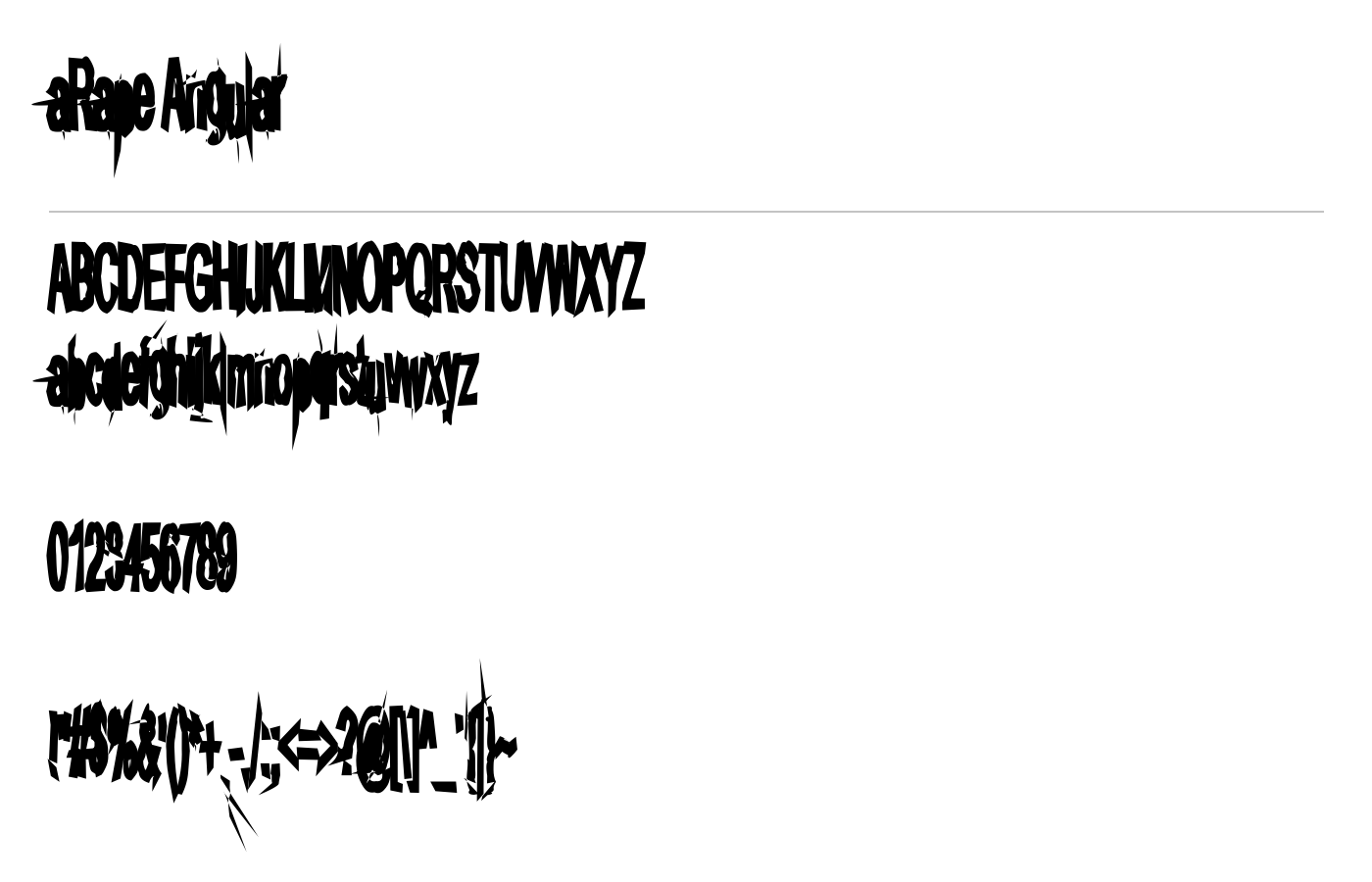
aRape Angular is an edgy, narrow sans serif font characterized by sharp, jagged strokes that create a striking, aggressive appearance. Its condensed, bold letterforms with angular points give it a raw, intense energy, making it ideal for impactful headlines, posters, and designs that require a rebellious or grunge vibe. This font works best where strong visual tension and uniqueness are desired to grab immediate attention.
aRape Angular Font
About aRape Angular Font